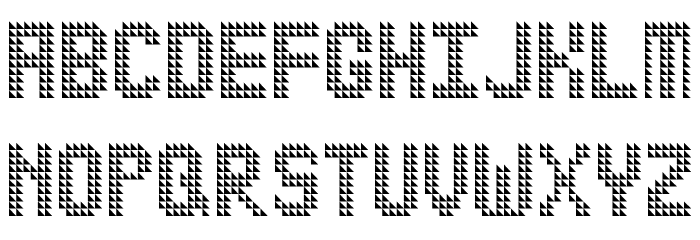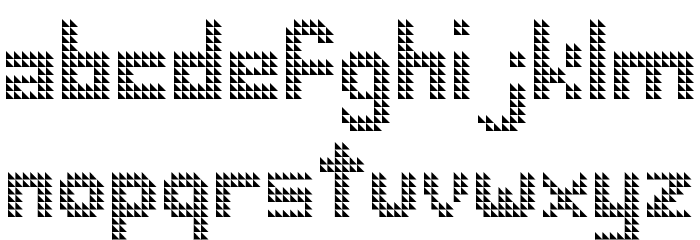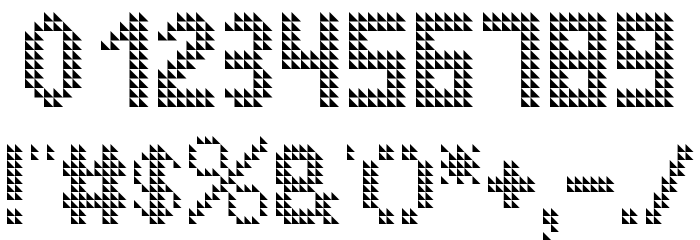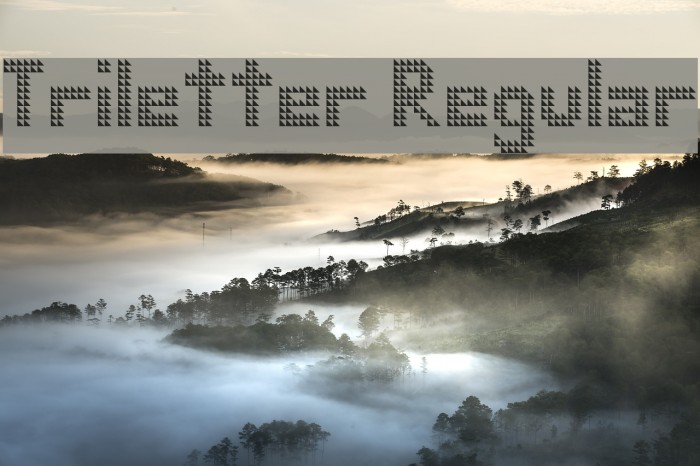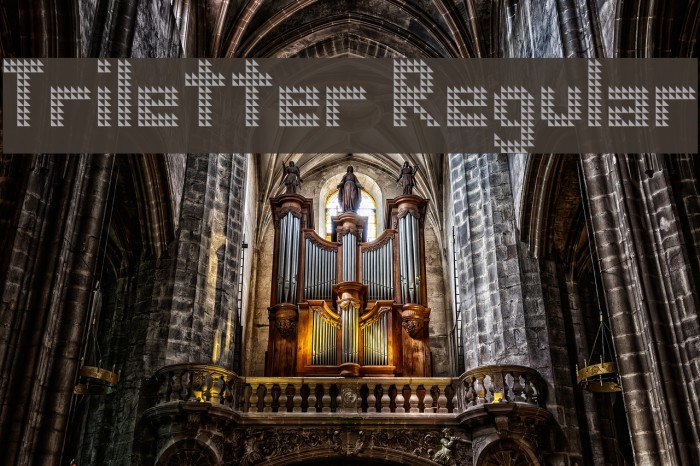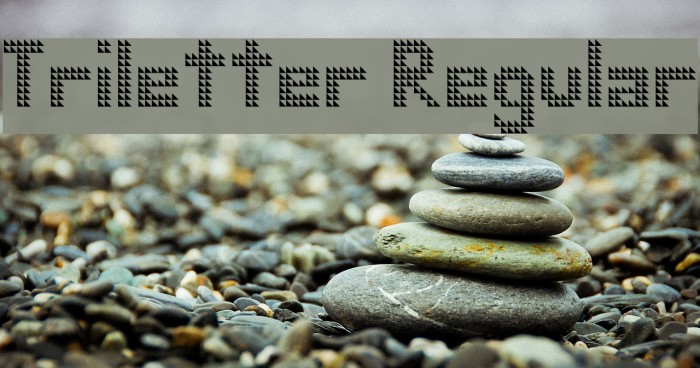
Triletter Regular Font
This font features a unique, geometric design composed of small triangular shapes that form each character. The style is bold and eye-catching, with a pixelated, digital aesthetic that stands out. Each letter and number is constructed with precision, creating a consistent and cohesive look across the entire set. The font's distinct appearance makes it ideal for modern and tech-oriented projects, offering a futuristic vibe. The characters are evenly spaced, providing a balanced and readable text, despite the intricate design. This font is perfect for creative and unconventional uses, where a strong visual impact is desired.
A bold, geometric font with a pixelated, digital aesthetic.
- Proposed Projects: Ideal for tech-themed designs, digital art, video game graphics, and modern branding.